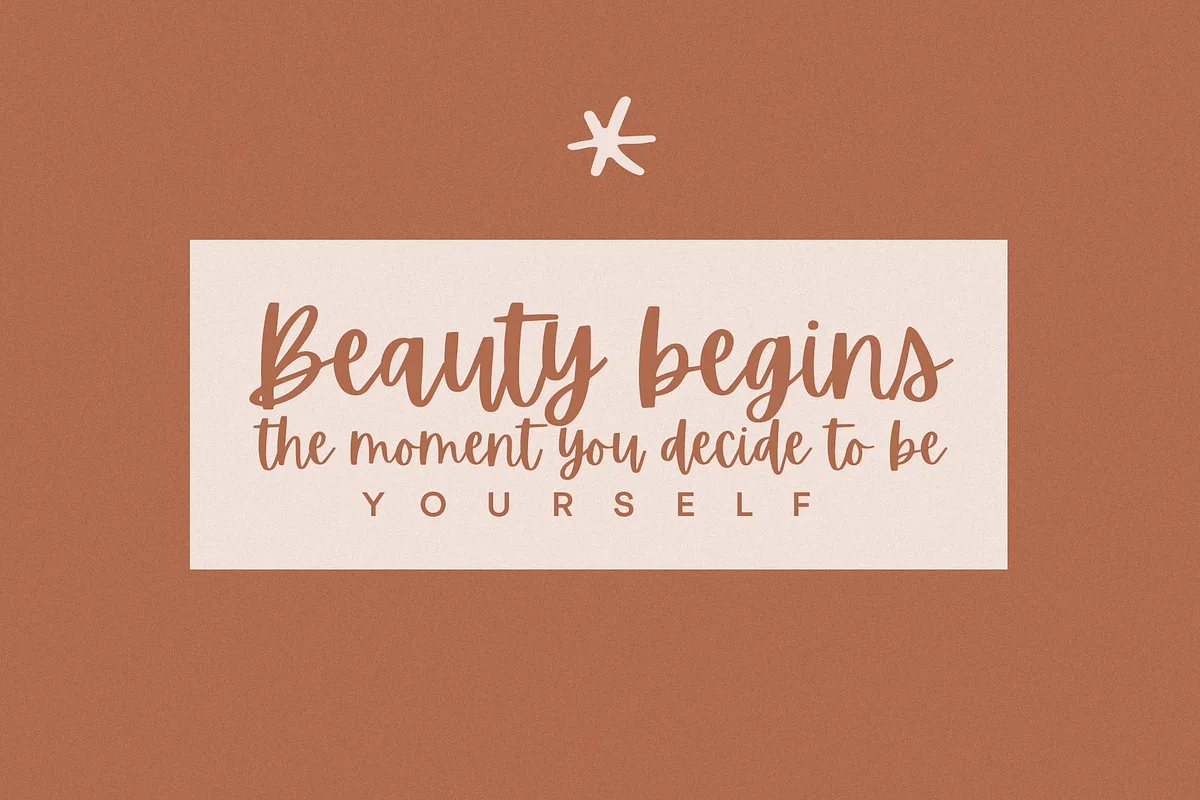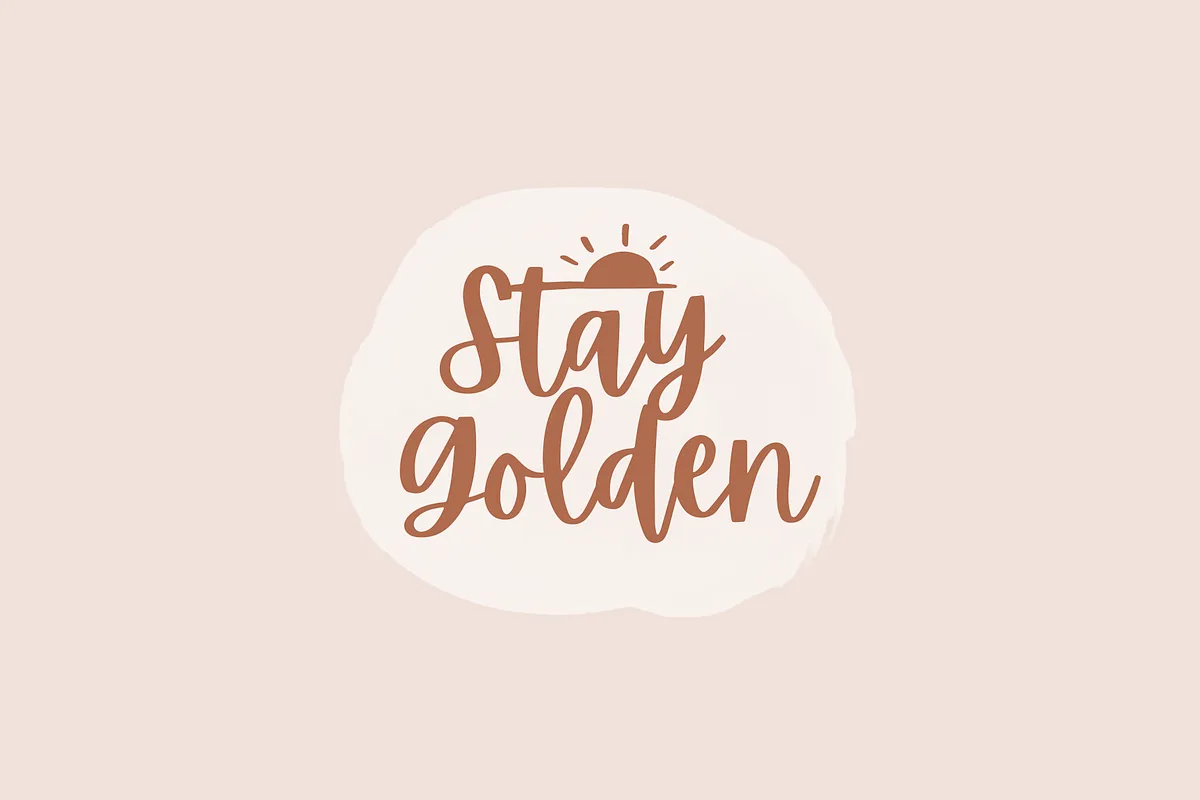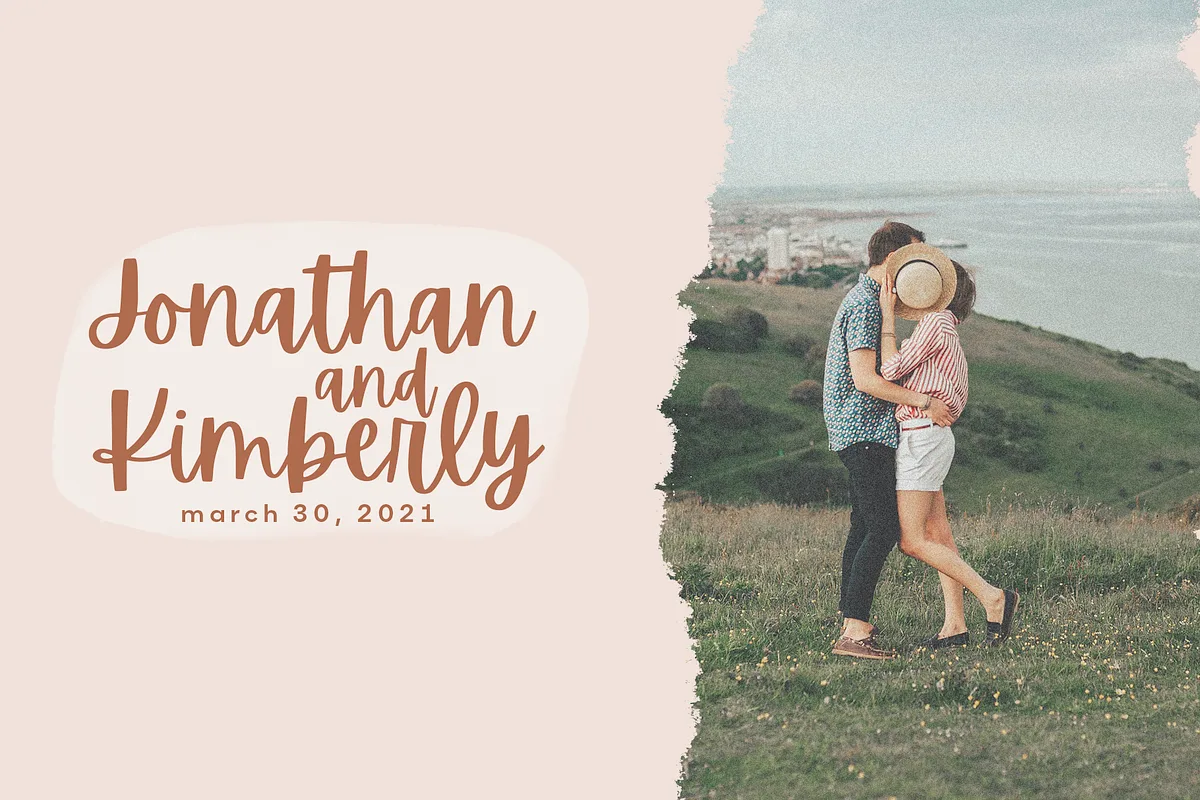
Apricots is a handwritten font with a fun, modern look! This font is perfect for modern projects, headings, blogs, logos, brandings, invitations and more!